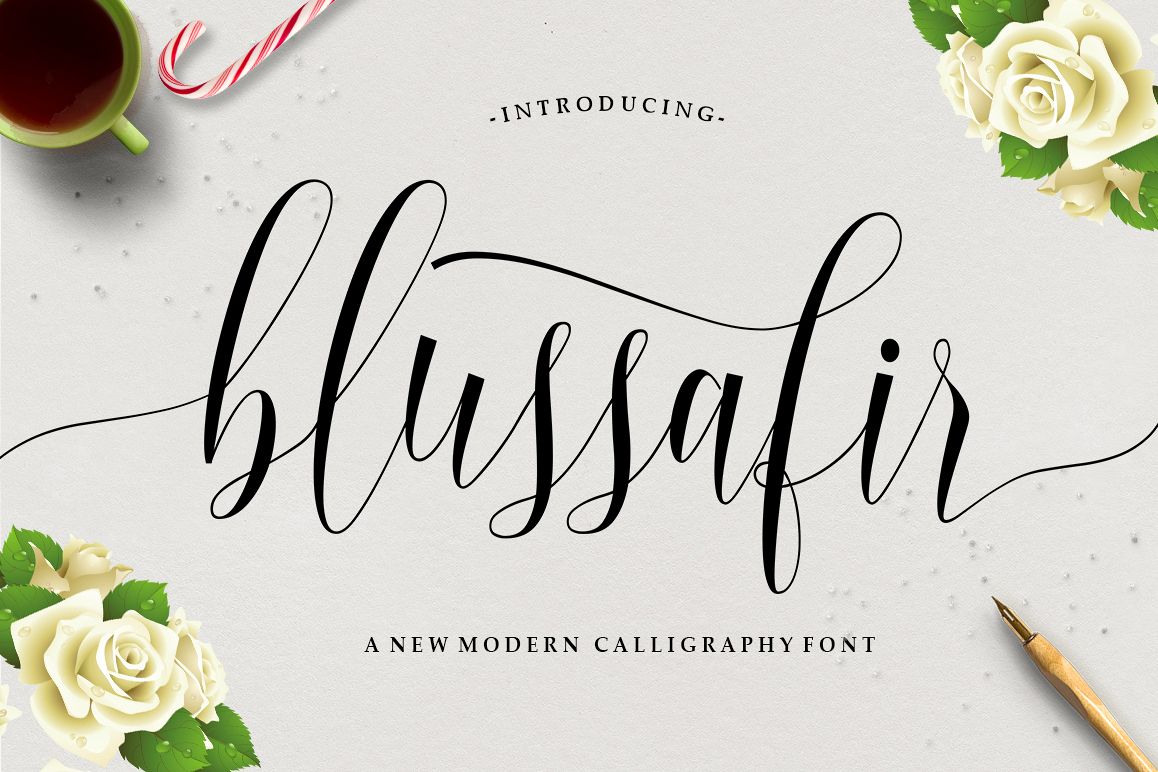
Blussafir Script
Blussafir Reguler
Blussafir Scriptis modern calligraphy design, including Regular. This font is casual and pretty with swashes. Can used for various purposes. such as logo, product packaging, wedding invitations, branding, headlines, signage, labels, signature, book covers, posters, quotes and more.
Blussafir Script features OpenType stylistic alternates, ligatures and International support for most Western Languages is included. To enable the OpenType Stylistic alternates, you need a program that supports OpenType features such as Adobe Illustrator CS, Adobe Indesign & CorelDraw X6-X7, Microsoft Word 2010 or later versions.